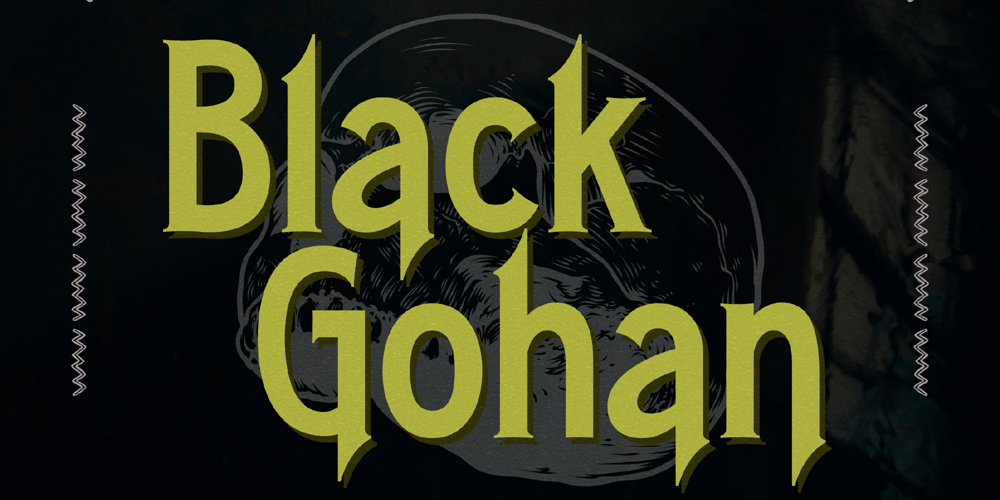
Black Gohan Font Family was designed by Heru Utama Putra and published by Letterena Studios. Black Gohan contains 2 styles and family package options. Black Gohan is a spectacular serif font. Incredibly versatile, this font fits a wide pool of designs, elevating them to the highest levels. Add this font to your favorite creative ideas and notice how it makes them come alive!